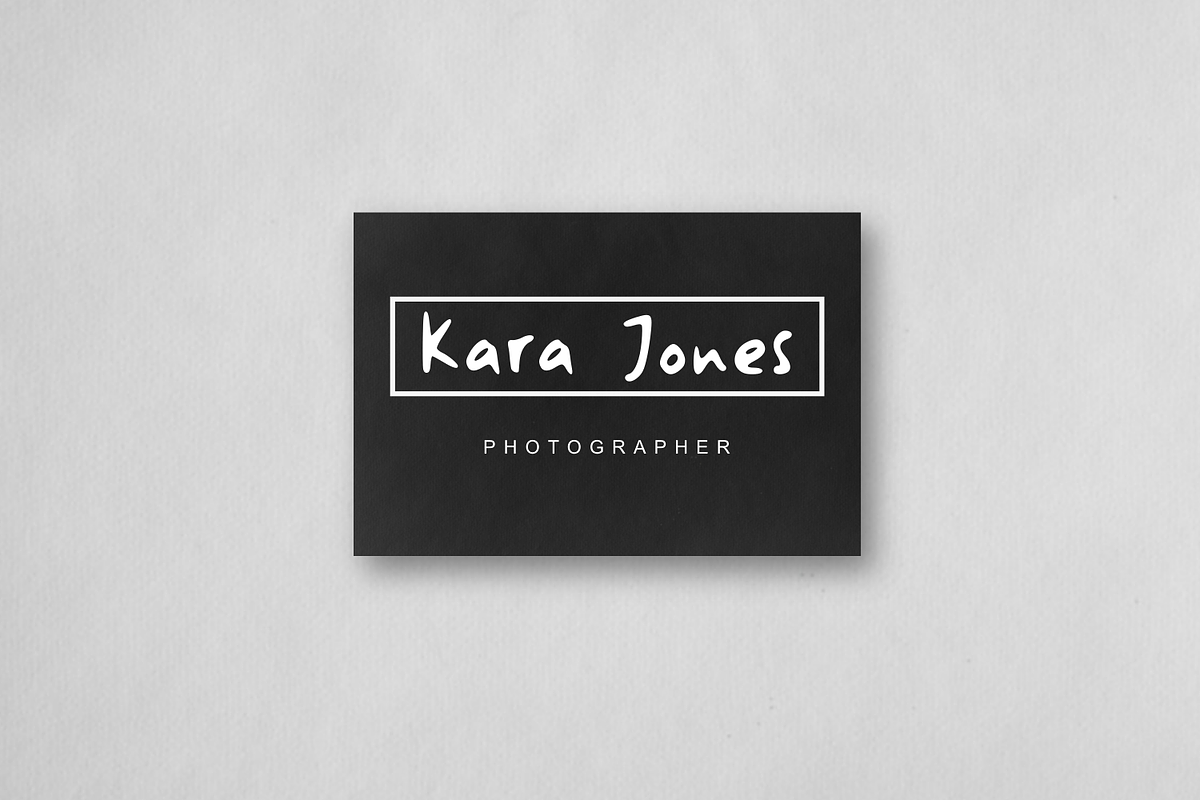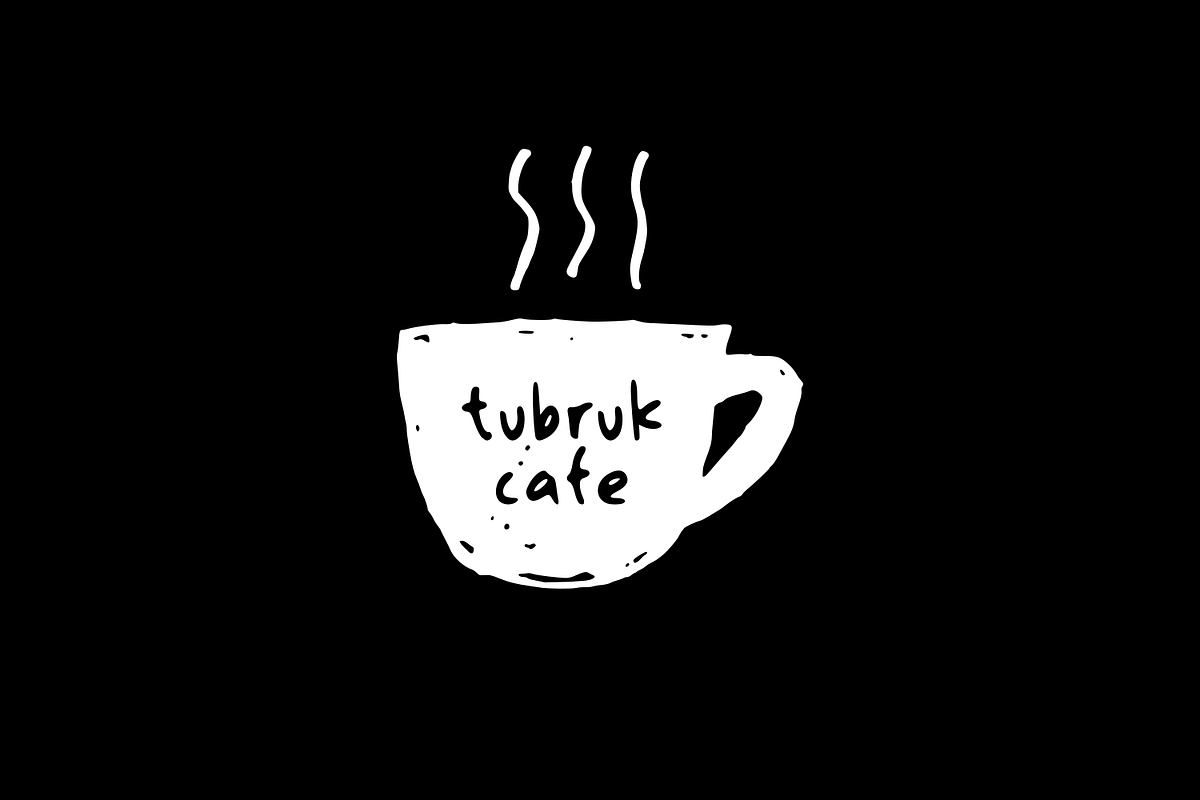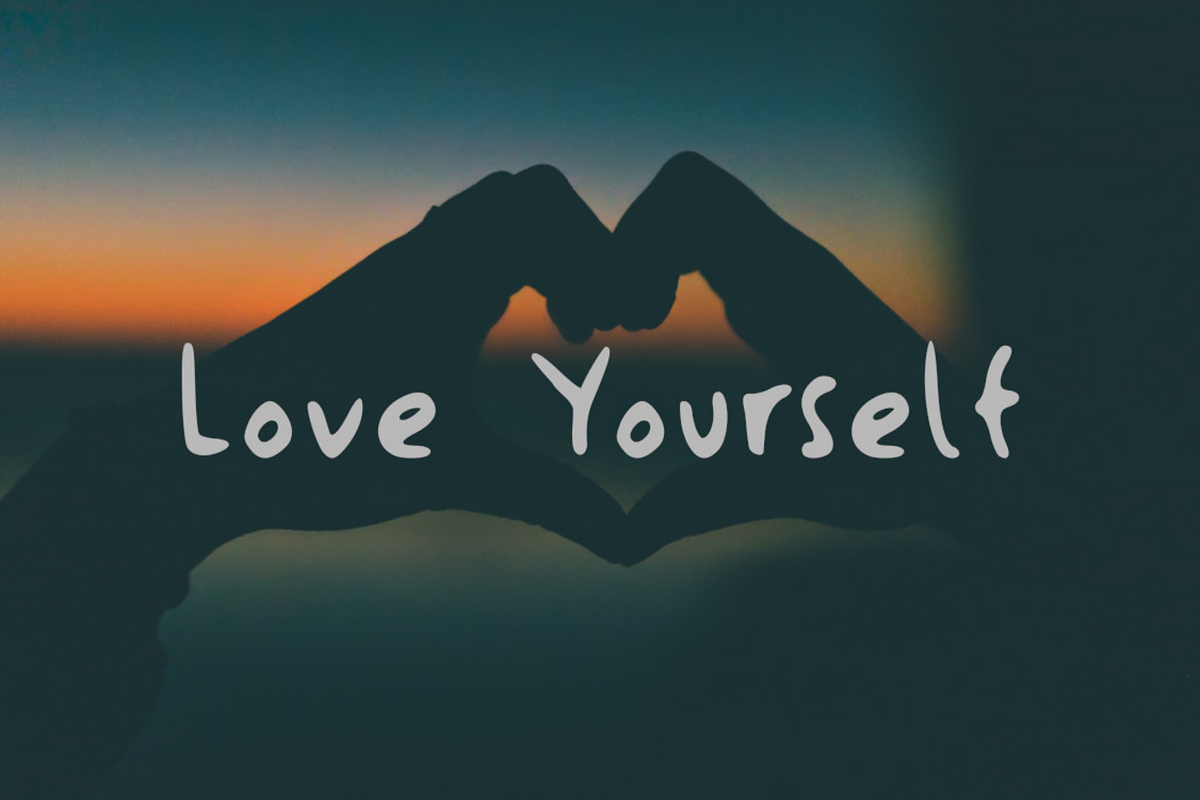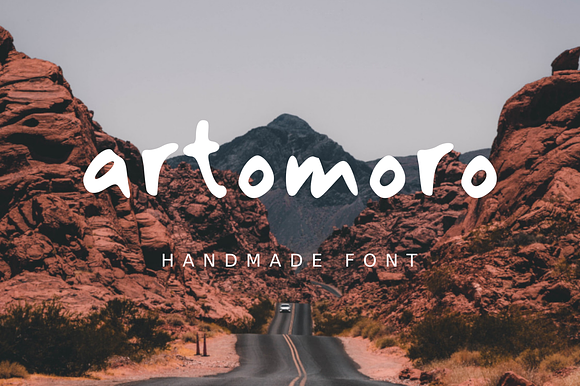
Artomoro Handmade Font
Artomoro is a natural handmade font. Artomoro is perfecly suited for logo, quotes, poster and more.
Artomoro Handmade Font by zuzulgo fits naturally into Branding, posters, packaging, typography.